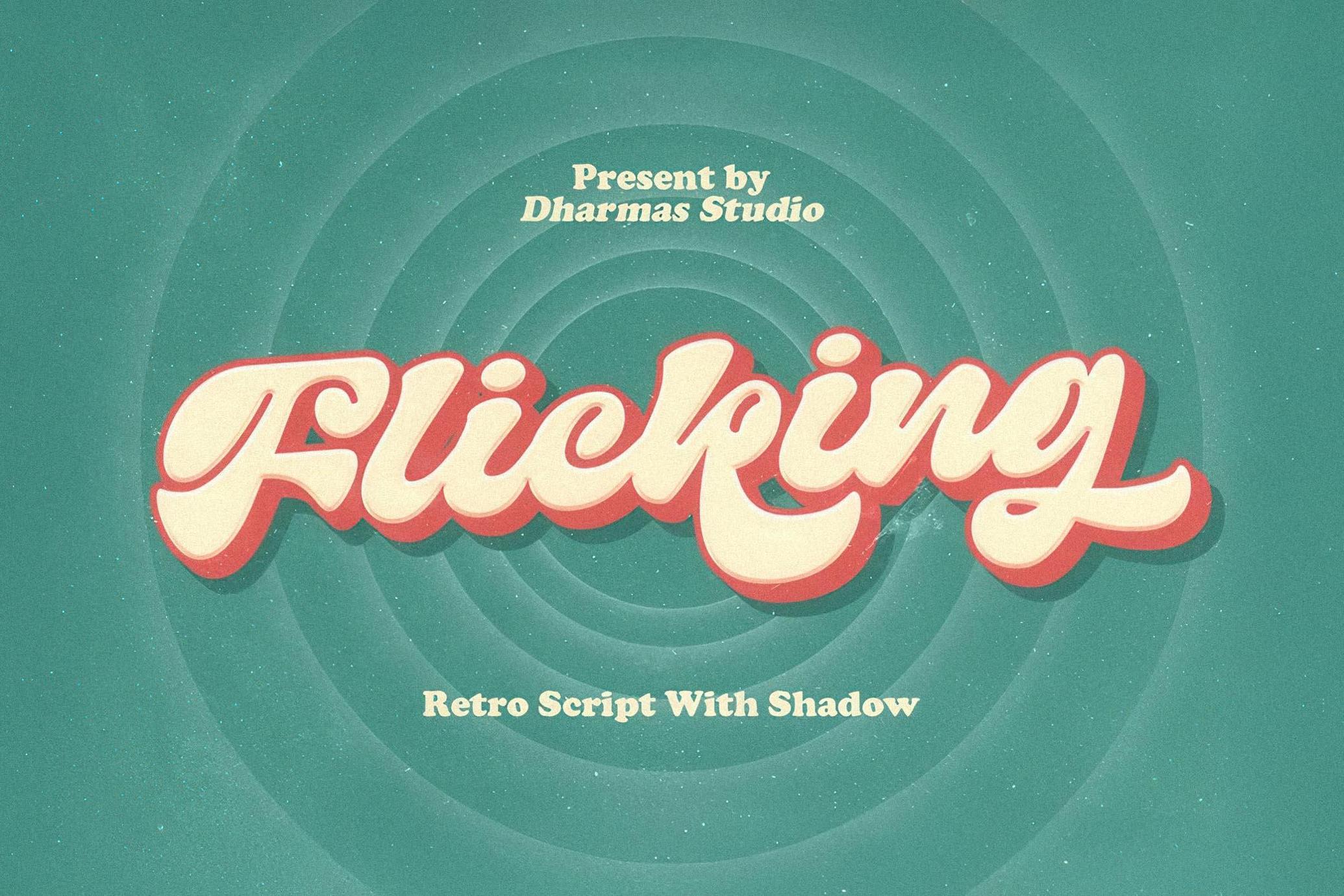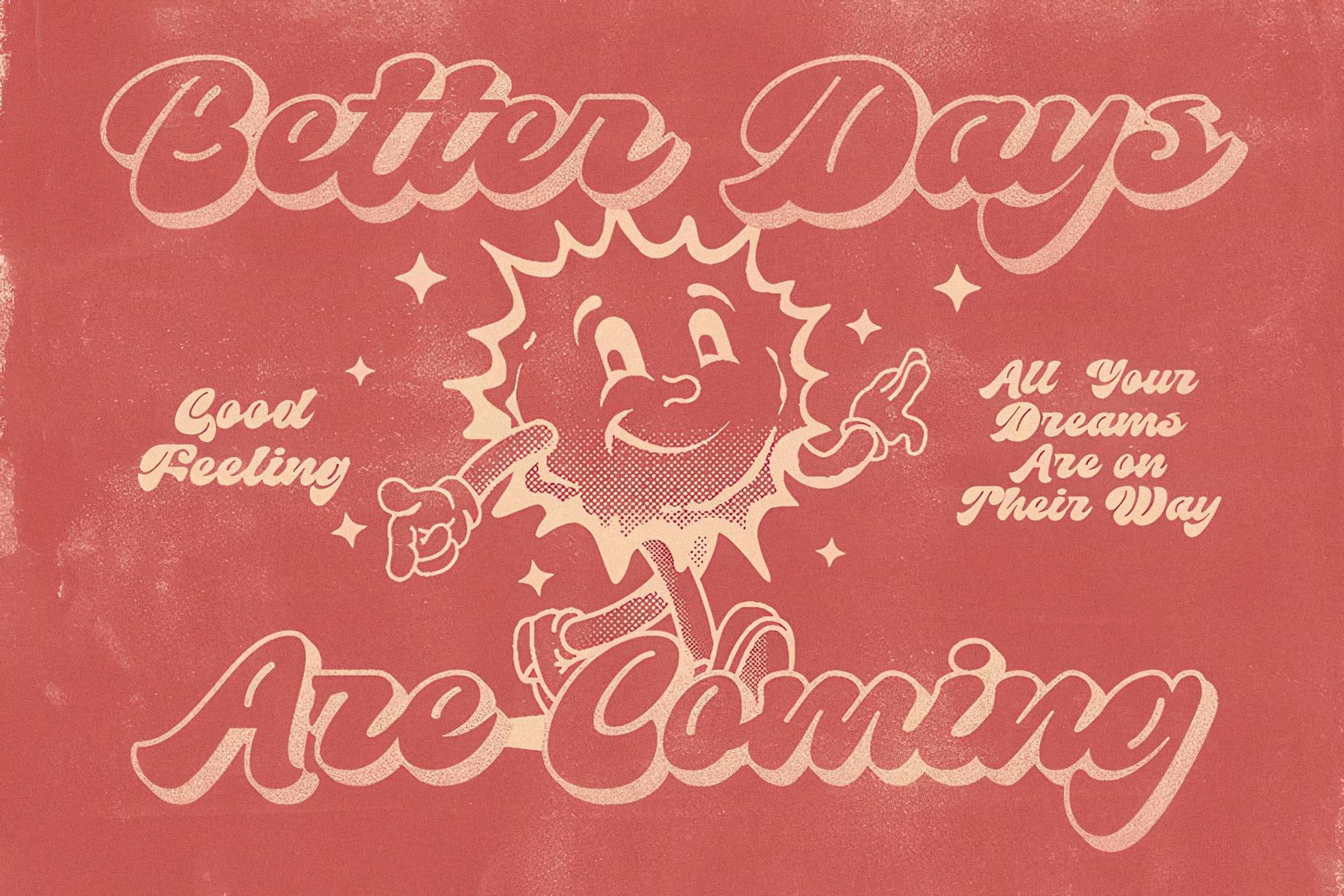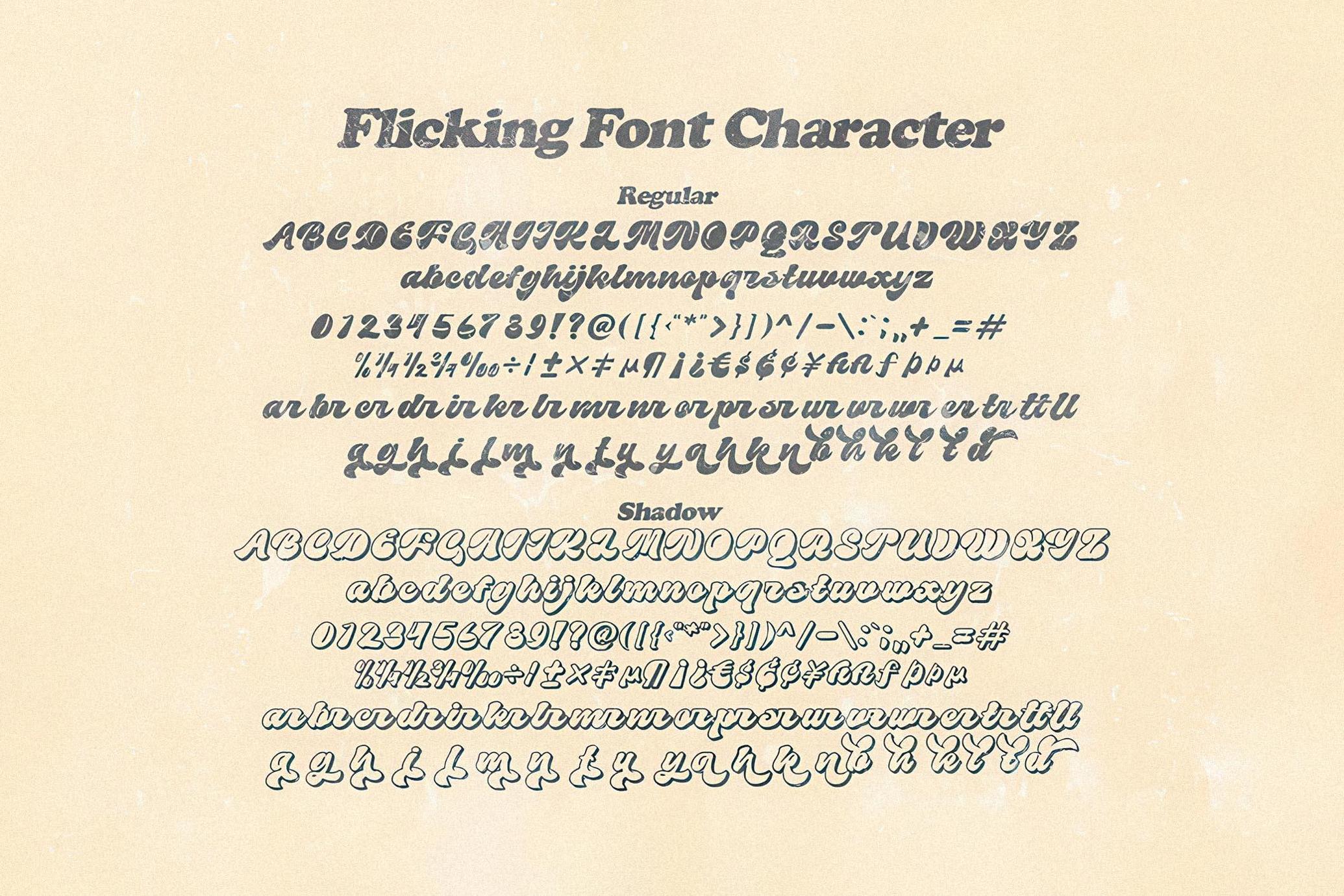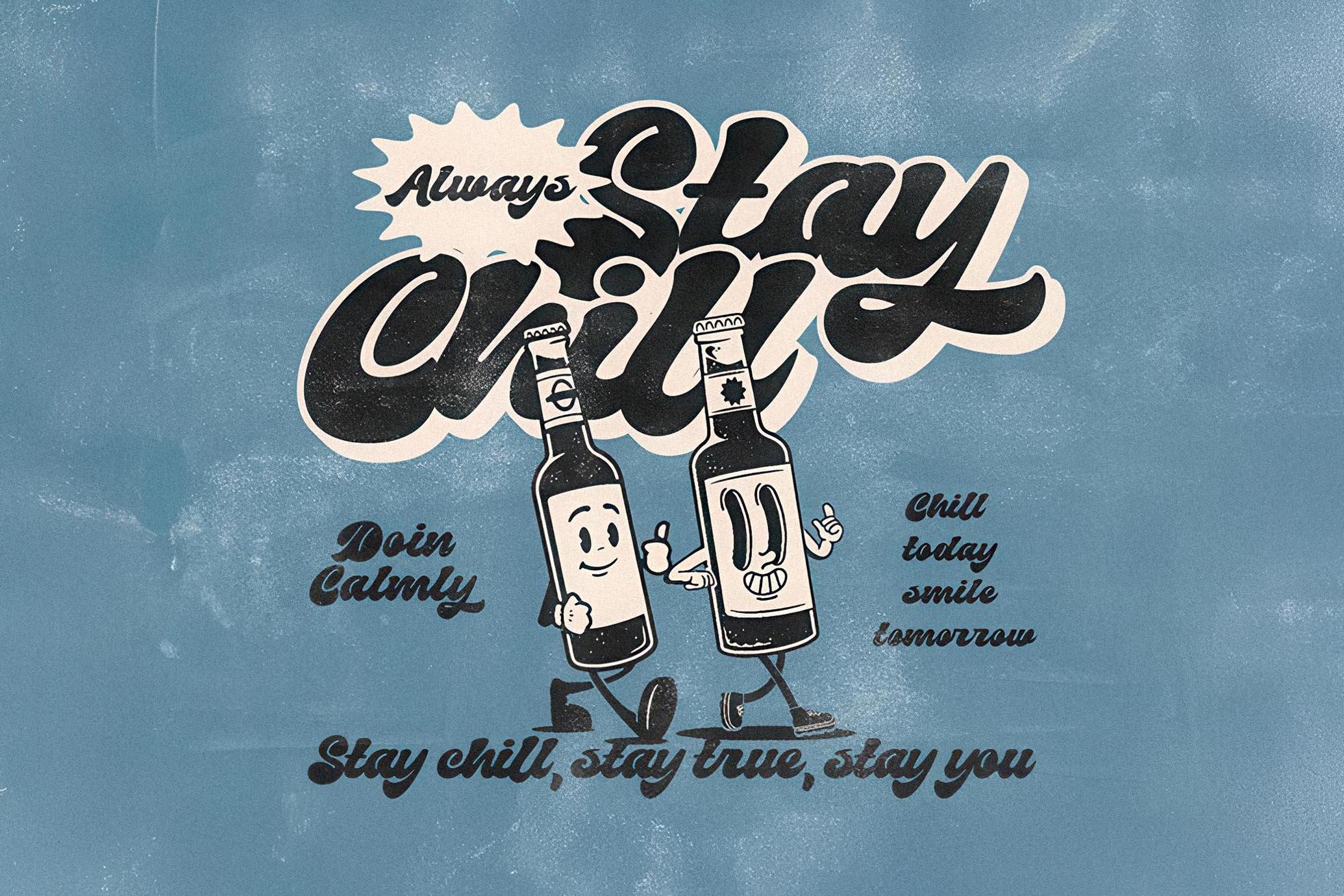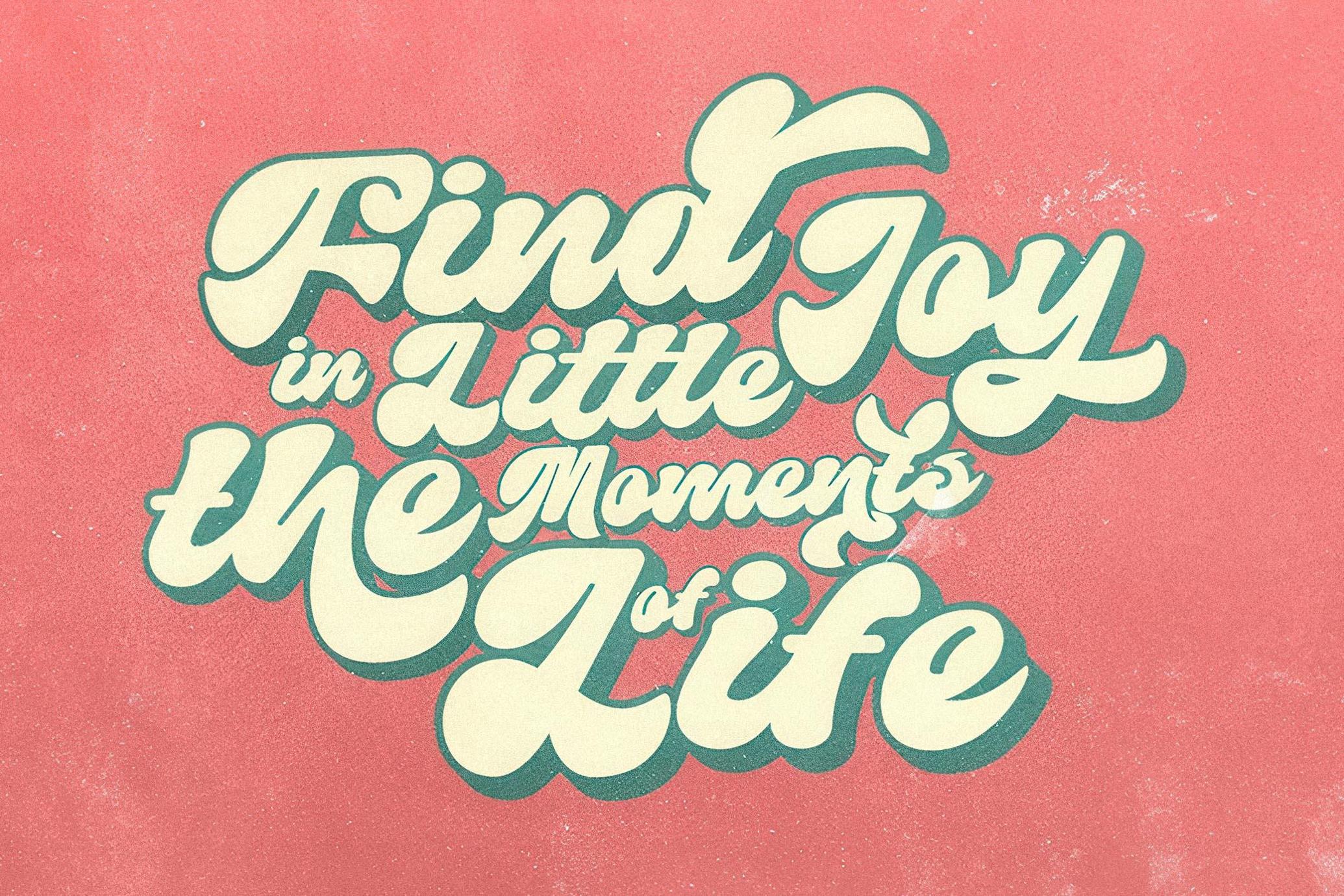
Flicking - Groovy Retro Font
Introducing FLICKING, a font that's like a groovy time machine to the 60s. With its bold retro script and the added Shadow version, creating that perfect vintage look is a breeze.
FLICKING offers two styles: Regular and Shadow, making it versatile for logos, invitations, labels, magazines, books, and even greeting cards.
• Has 2 Families: Regular and Shadow
• Unique Letterforms